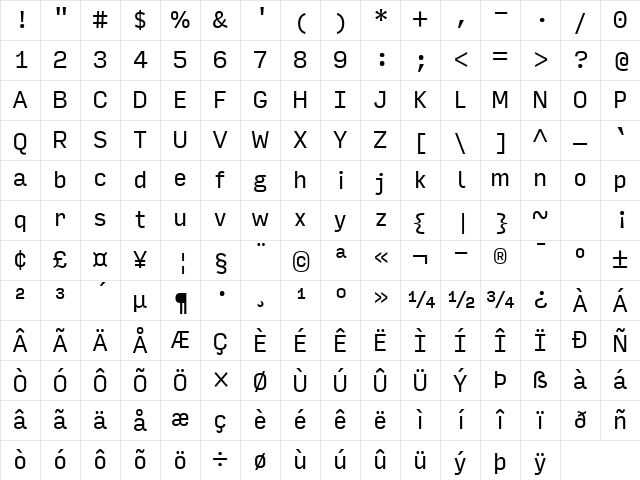
Complete Input Sans Narrow Regular glyph index. Displaying only characters natively supported by Input Sans Narrow Regular font.
Input Sans Narrow is a composed and adaptable typeface that performs quietly and consistently across a wide range of design contexts. Its narrow stance lets it pack a punch even in space-constrained designs.
Who designed the Input Sans Narrow Regular font?
This font was published by David Jonathan Ross and The Font Bureau. Check the technical specs section for copyright and designer details.